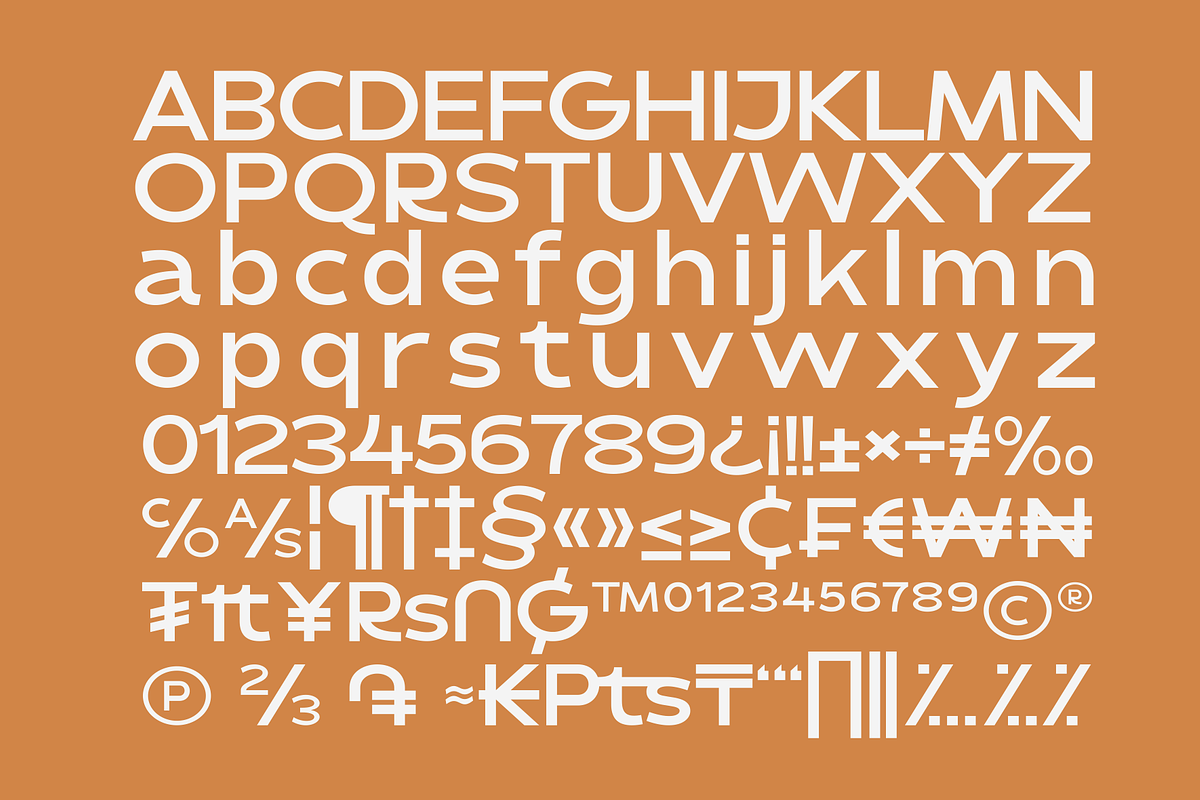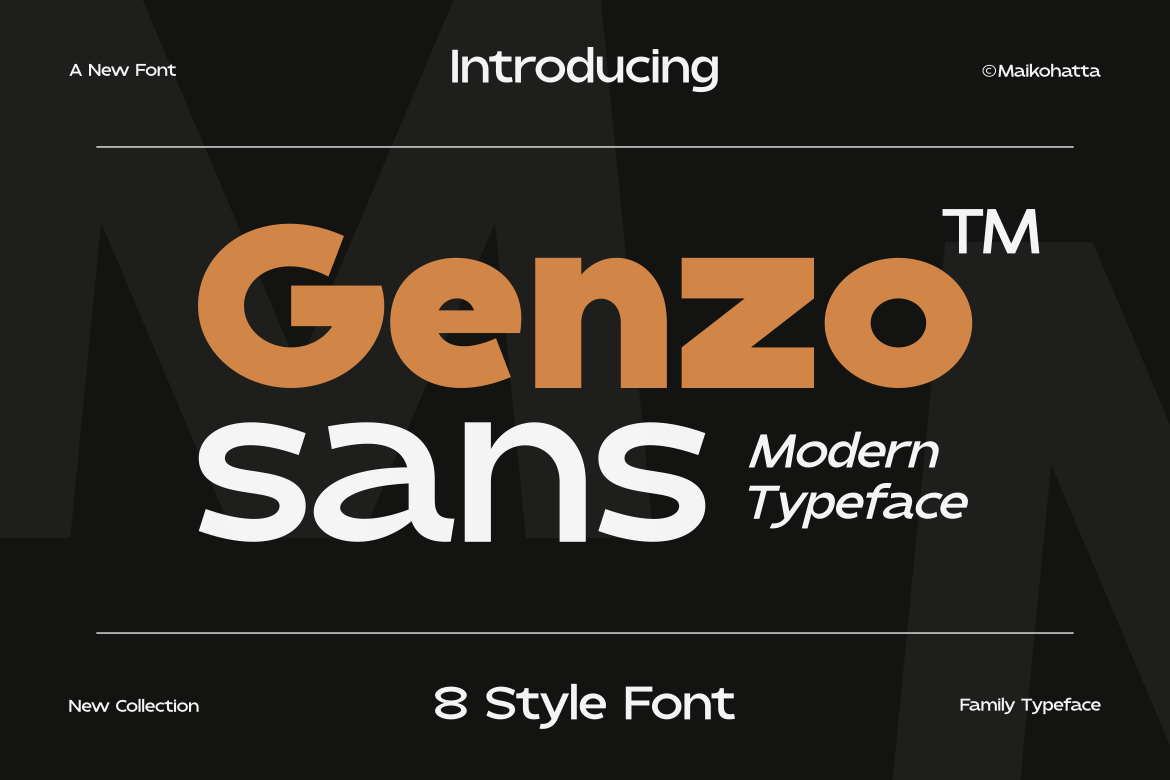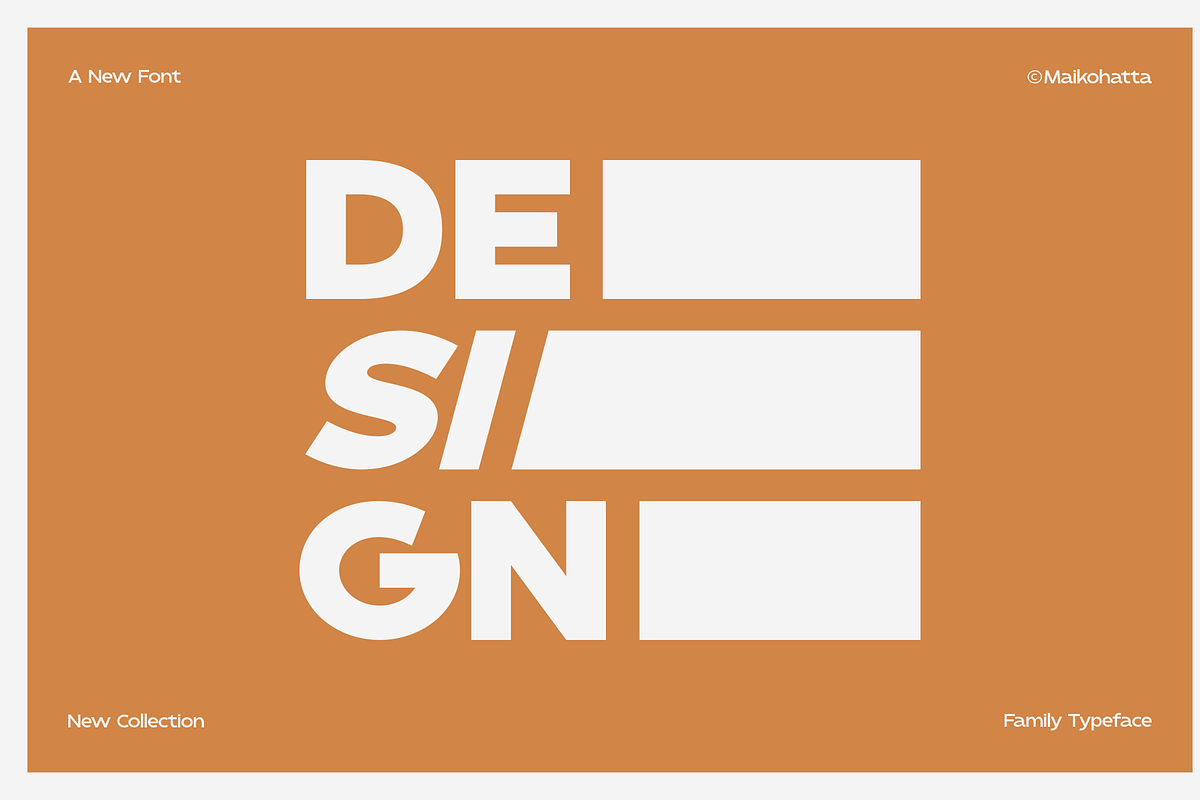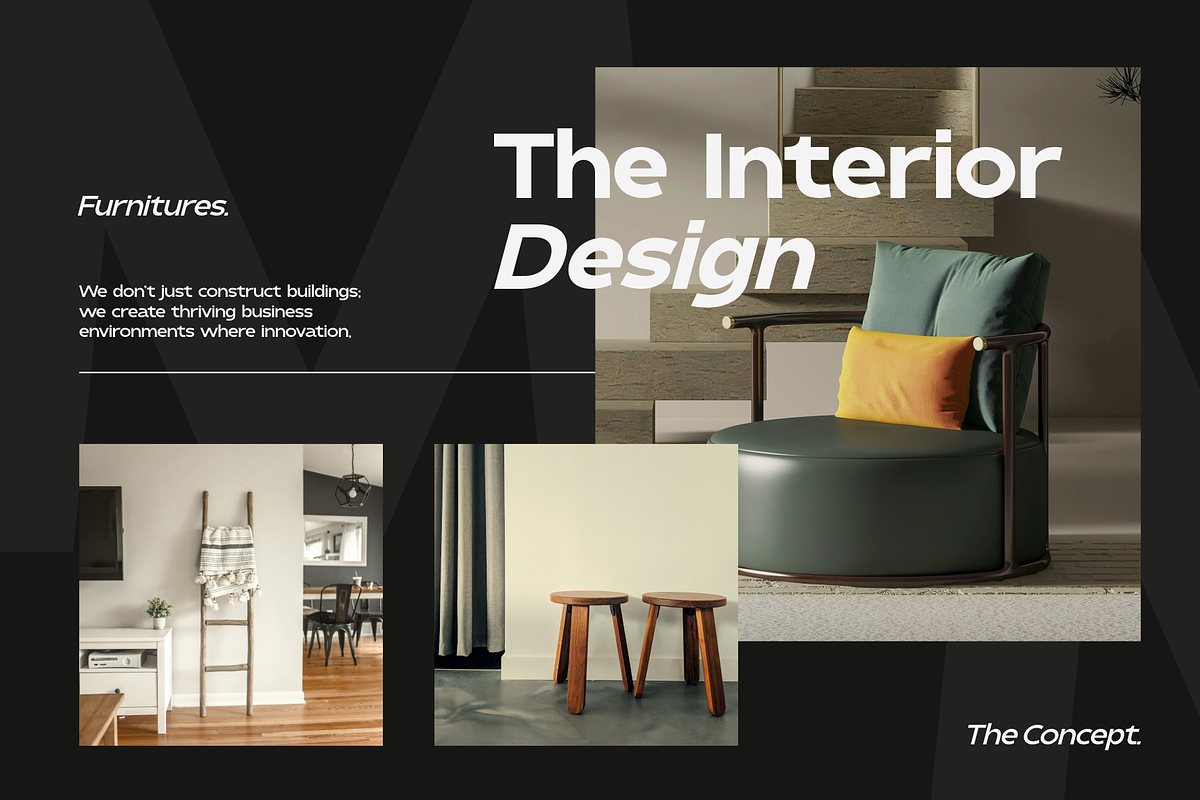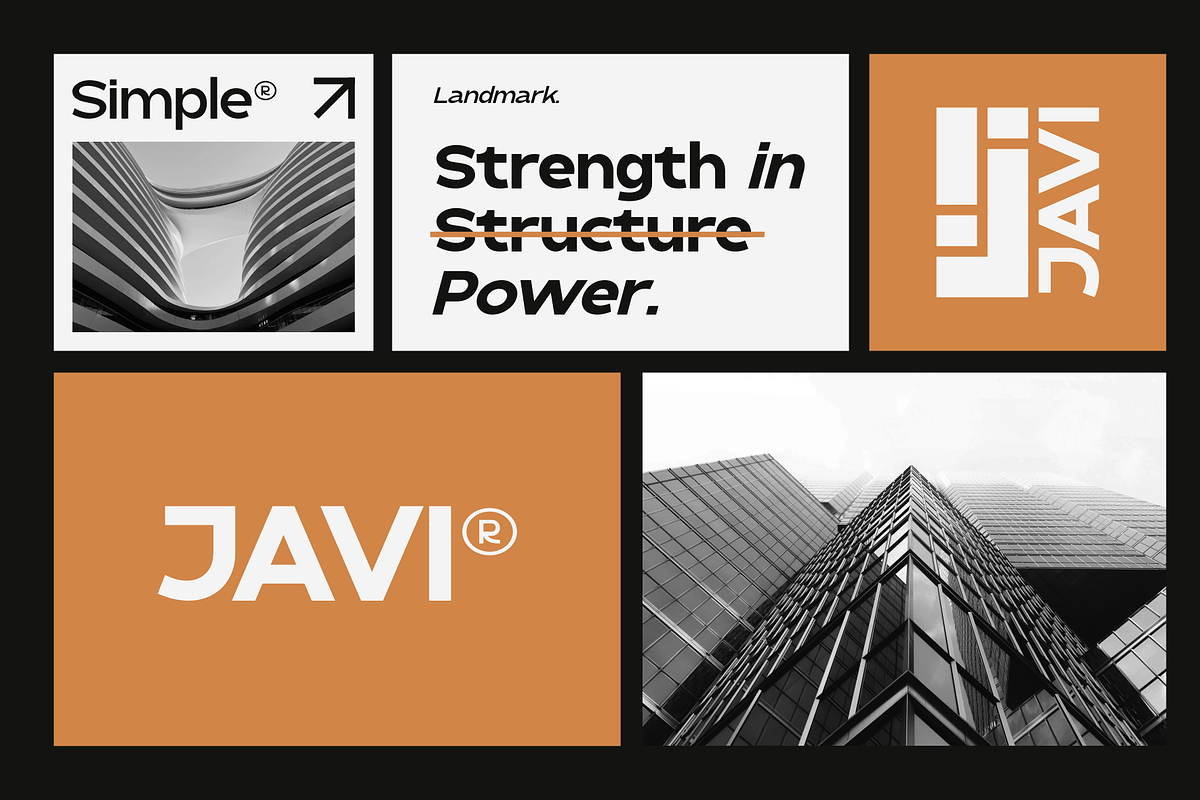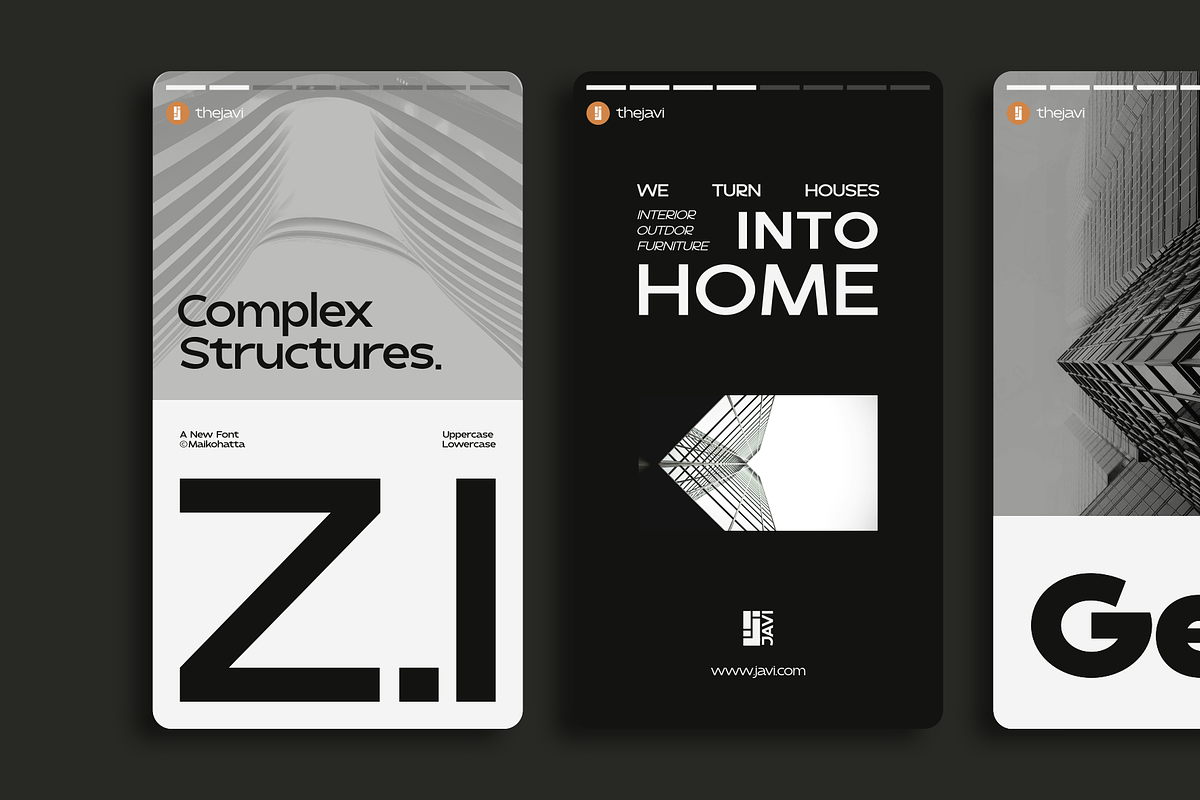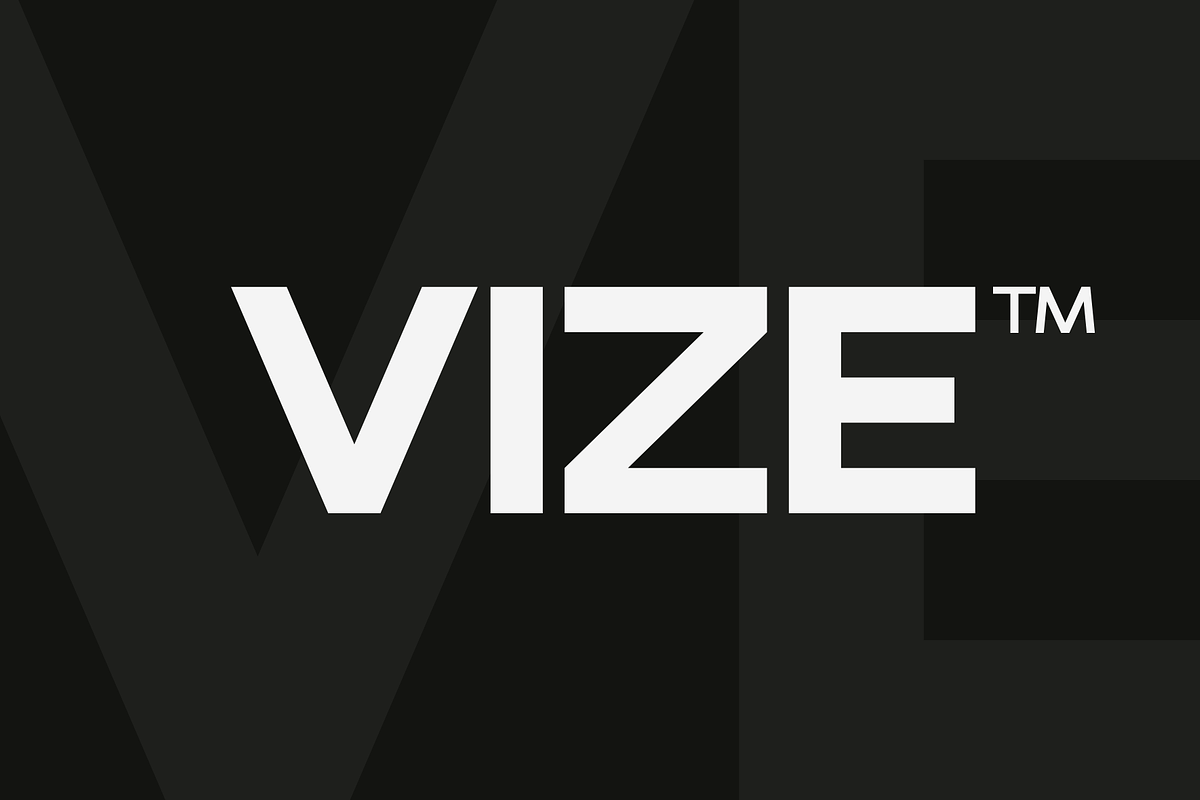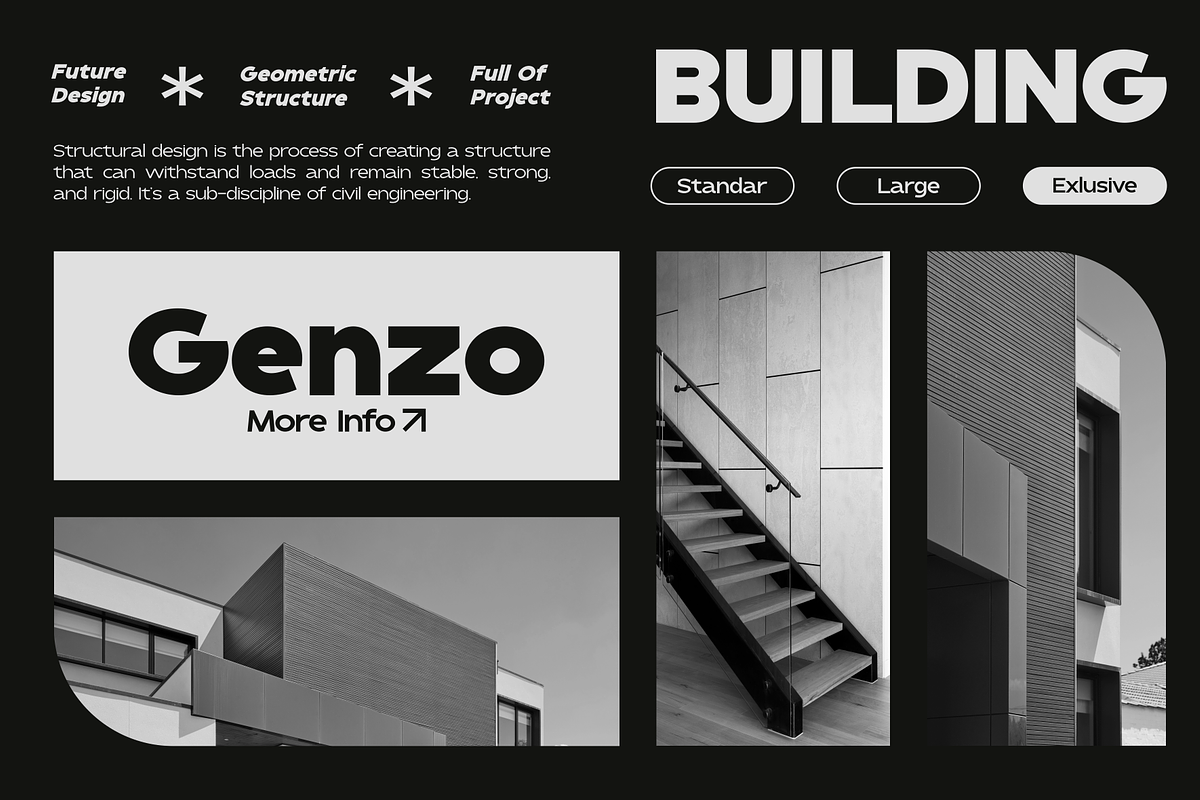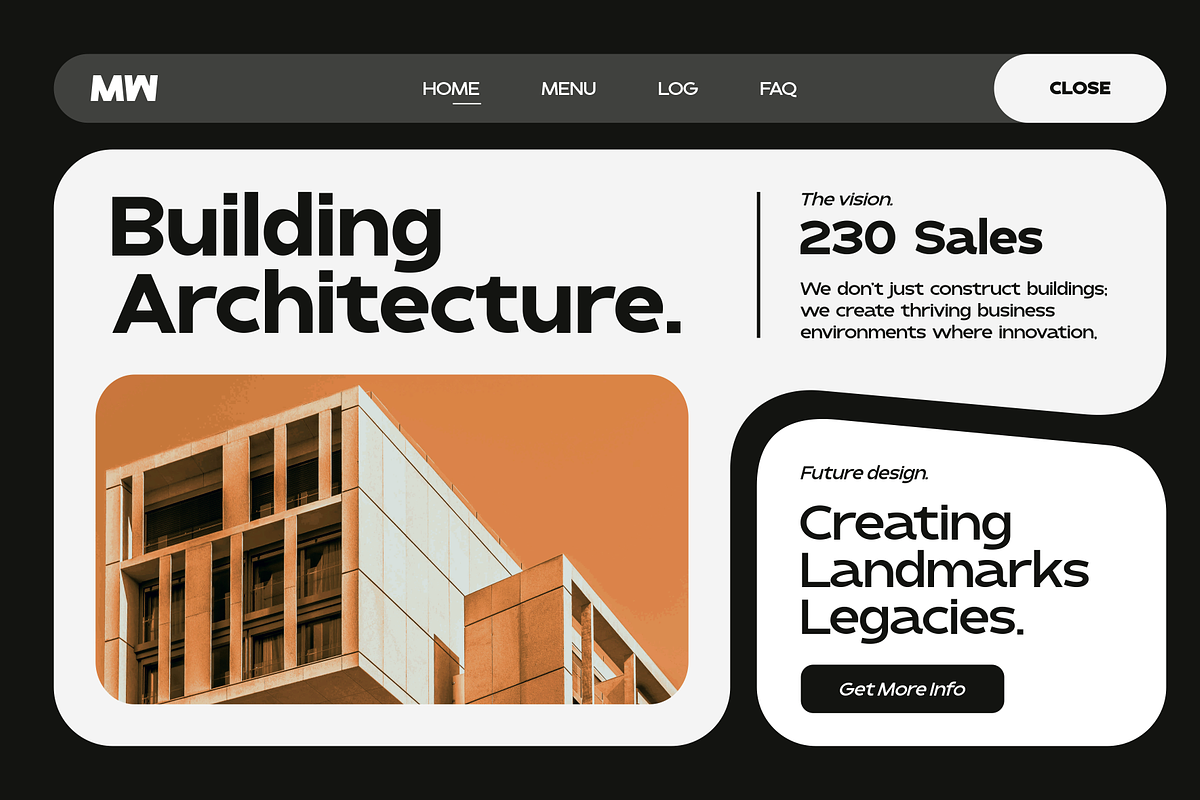
Genzo - Modern Sans Serif Typeface
Introducing our new product Genzo - Modern Sans Serif Typeface
A sans-serif font family available in various styles is a highly versatile choice for graphic design and clean, modern text displays. This sans-serif font family offers flexibility in graphic design, and its various styles allow you to customize the appearance of text to suit your project's needs. With various combinations, you can create attractive and easy-to-read text displays in various contexts.